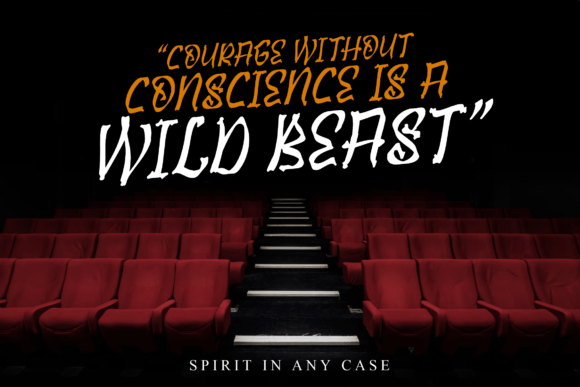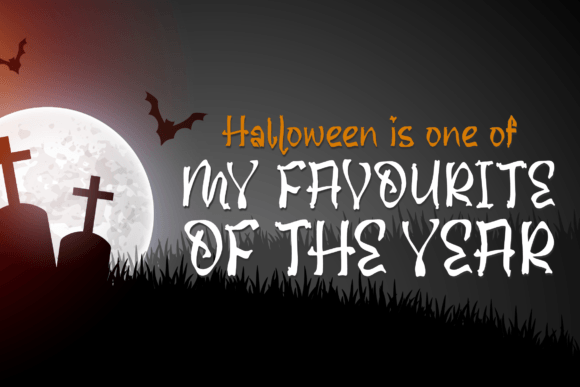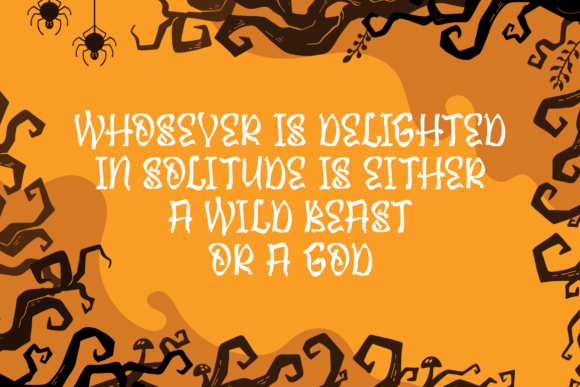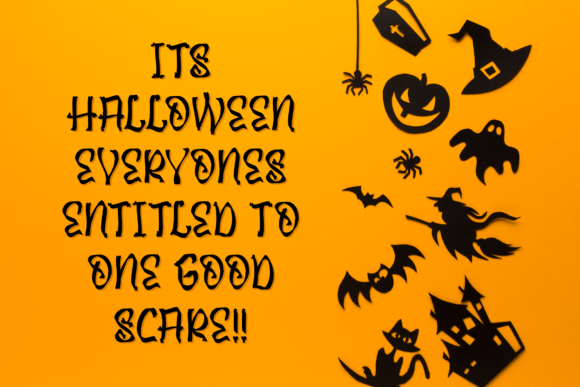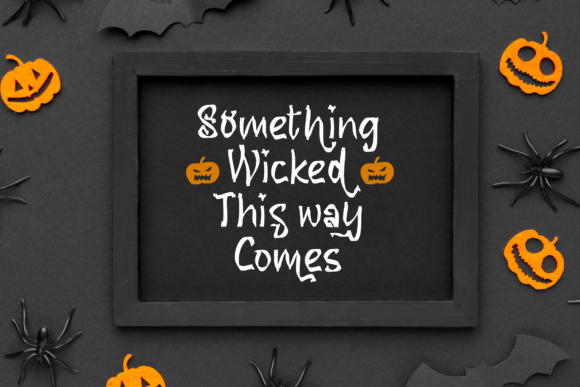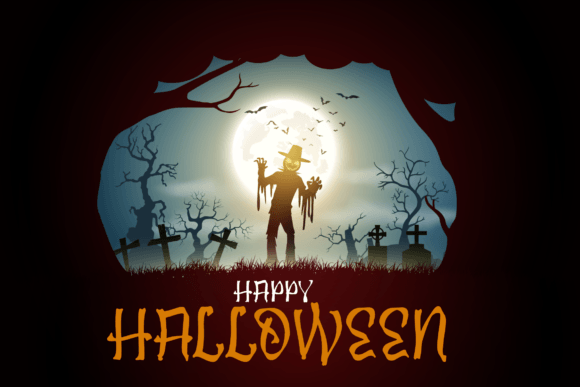
Spicing Up Your Halloween Designs with the Horosmyth Font
Have you ever found yourself rummaging through your font library on a crisp autumn evening, searching for the perfect font to add a touch of magic to your Halloween-themed design? It’s a moment we’ve all been there, and it’s what makes the discovery of a new, captivating font so exhilarating.
Enter the Horosmyth Font, a whimsical and fun handwritten font that’s as spooky as it is mysterious. This enchanting font is designed to bring a touch of Halloween charm to your designs, from eerie invitations to haunted house posters. Its unique blend of elegance and playfulness makes it a valuable addition to any designer’s toolkit, offering endless possibilities for creative expression.
Whether you’re a seasoned designer or a newcomer to the world of typography, the Horosmyth Font is sure to cast a spell on your next Halloween project.
Horosmyth Font Key Features
- Font Family: Horosmyth, with multiple styles including Regular, Italic, Bold, and Bold Italic.
- Unique Characteristics: Features a distinctive blend of mystical and celestial elements, with intricate details and ornaments.
Horosmyth Font Review
Overall, I think the Horosmyth Font is a solid addition to any designer’s toolkit. Here are a few things that really stand out to me:
- ✨ Unique and modern design: The font’s blend of traditional and futuristic elements makes it perfect for projects that need a touch of sophistication.
- ✨ Versatility: Horosmyth can be used for a wide range of applications, from branding and advertising to digital products and publishing.
- ✨ High-quality glyphs: The font’s glyphs are well-crafted and visually appealing, making it a pleasure to work with.
However, there are a few limitations that designers should be aware of:
- ⚠️ Limited language support: Horosmyth Font currently only supports Latin-based languages, which may limit its use for projects requiring non-Latin scripts.
- ⚠️ Not suitable for small text: Due to its modern design, Horosmyth can be difficult to read in small text sizes, making it best suited for headings and body copy.
Overall, I think the Horosmyth Font is a great choice for designers looking to add some visual interest to their projects. While it may have some limitations, its unique design and high-quality glyphs make it well worth considering.
Tips for Getting the Most Out of Horosmyth Font
1. Use the Horosmyth font for titles and headings to create a bold and eye-catching effect.
2. Experiment with different font sizes and styles to add depth and visual interest.
3. Combine the Horosmyth font with other fonts to create a unique and eclectic look.
Alternatives to Horosmyth Font
Montserrat Font is a sans-serif typeface that is inspired by the streets of Buenos Aires. It is ideal for use in modern designs, particularly for titles, headings, and body text where a clean and minimalistic look is required.
Montserrat Font is similar to Horosmyth Font in its modern and clean design, but it has a more geometric and urban feel. It is a popular choice for designers who want a versatile and highly legible font.
Open Sans Font is a modern sans-serif typeface that is designed to be highly legible and suitable for a wide range of applications. It is ideal for use in body text, titles, and headings where a clean and simple look is required.
Open Sans Font is similar to Horosmyth Font in its clean and minimalistic design, but it has a more rounded and friendly feel. It is a popular choice for designers who want a highly legible font that is easy to read.